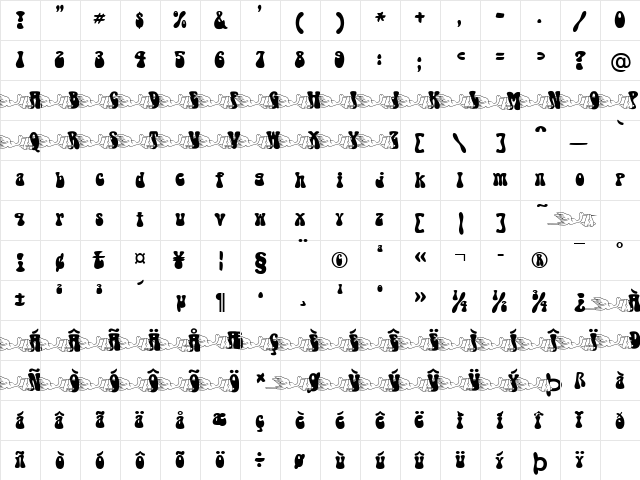
BabyStork Becker Normal Font Preview
BabyStork Becker Normal
Design Context for BabyStork Becker Typeface
BabyStork Becker is a composed and adaptable typeface that performs quietly and consistently across a wide range of design contexts.
Pro Tip: Use BabyStork Becker in both headline and body roles to test its range before committing to a single application.